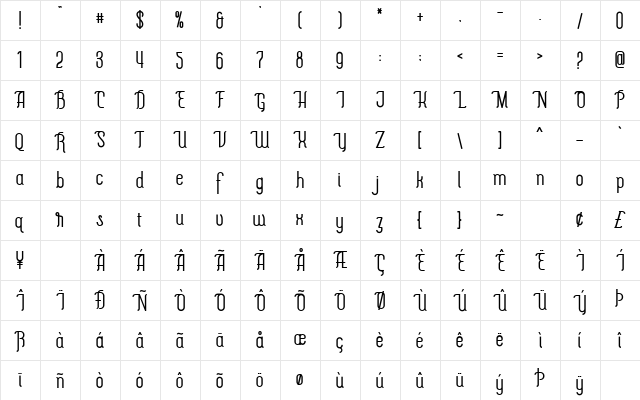
The Hotelio Regular
| Foundry | Holis Mjd |
| Designer | Holis Mjd |
Design Context for The Hotelio Typeface
The Hotelio is a composed and adaptable typeface that performs quietly and consistently across a wide range of design contexts.